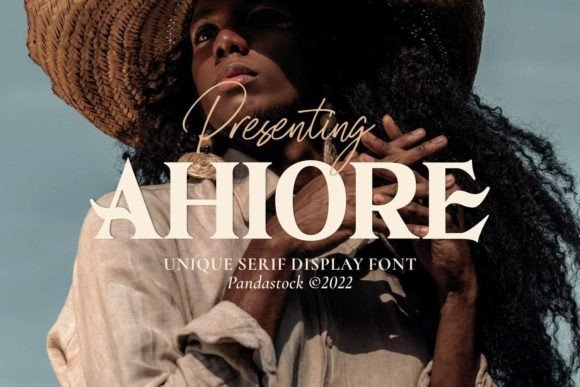
Ahiore Font: Elevate Your Design with Elegance and Charm
In the world of typography, fonts play a crucial role in conveying the tone and aesthetic of a design. Among the numerous fonts available, Ahiore stands out as a beautiful serif font that embodies charm and elegance in every letter. With its smooth curves and visually appealing style, Ahiore is an excellent choice for designers looking to add a touch of sophistication to their work.
The Characteristics of Ahiore Font
Ahiore is a versatile serif font that boasts a unique blend of classic and modern elements. Its smooth curves and refined lines make it an ideal choice for a wide range of design projects. Here are some of the key characteristics that make Ahiore a standout font:
- Elegant and Refined: Ahiore’s serif design gives it an air of elegance and sophistication, making it perfect for high-end branding, editorials, and luxury product packaging.
- Smooth Curves: The font’s smooth curves and rounded lines create a visually appealing effect that adds charm to any design.
- Versatile: Ahiore works well in both large and small sizes, making it suitable for a variety of projects, from display headings to body text.
Uses of Ahiore Font
Ahiore’s versatility makes it an excellent choice for a wide range of design projects. Here are some of the ways you can use Ahiore to elevate your design:
1. Display Headings
Ahiore’s elegant and refined design makes it perfect for display headings. Use it to create stunning titles, headings, and captions that grab attention and add a touch of sophistication to your design.
2. Logos and Branding
Ahiore’s unique blend of classic and modern elements makes it an excellent choice for logos and branding. Use it to create a memorable and elegant brand identity that sets you apart from the competition.
3. Invitations and Event Design
Ahiore’s elegant design makes it perfect for invitations, event design, and wedding stationery. Add a touch of sophistication and elegance to your event design with Ahiore.
4. Magazine and Editorial Design
Ahiore’s readability and elegance make it an excellent choice for magazine and editorial design. Use it to create stunning articles, features, and editorials that showcase your content in style.
5. Product Packaging and Mockups
Ahiore’s versatility makes it suitable for product packaging and mockups. Use it to create stunning labels, packaging, and product designs that showcase your product in a elegant and refined way.
6. Photography and Art Deco
Ahiore’s classic and modern elements make it an excellent choice for photography and art deco designs. Use it to add a touch of elegance and sophistication to your photography and art deco projects.
Why Choose Ahiore Font?
With so many fonts available, why choose Ahiore? Here are some reasons why Ahiore stands out from the rest:
- Unique Design: Ahiore’s unique blend of classic and modern elements makes it a standout font that adds a touch of elegance and sophistication to any design.
- Versatility: Ahiore works well in both large and small sizes, making it suitable for a wide range of design projects.
- Readability: Ahiore’s clear and refined design makes it easy to read, even in small sizes.
Tips for Using Ahiore Font
Here are some tips for using Ahiore font effectively in your design:
1. Pair it with Other Fonts
Ahiore pairs well with other fonts, especially sans-serif fonts. Experiment with different font combinations to create a unique and visually appealing design.
2. Use it for Headings and Titles
Ahiore’s elegant design makes it perfect for headings and titles. Use it to create stunning headings and titles that grab attention and add a touch of sophistication to your design.
3. Experiment with Font Sizes
Ahiore works well in both large and small sizes. Experiment with different font sizes to create a visually appealing design that showcases your content in style.
Ahiore font is a beautiful serif font that embodies charm and elegance in every letter. With its smooth curves and refined lines, Ahiore is an excellent choice for designers looking to add a touch of sophistication to their work. Its versatility makes it suitable for a wide range of design projects, from display headings to body text. Whether you’re a graphic designer, a typographer, or a DIY enthusiast, Ahiore font is an excellent choice for your next design project.